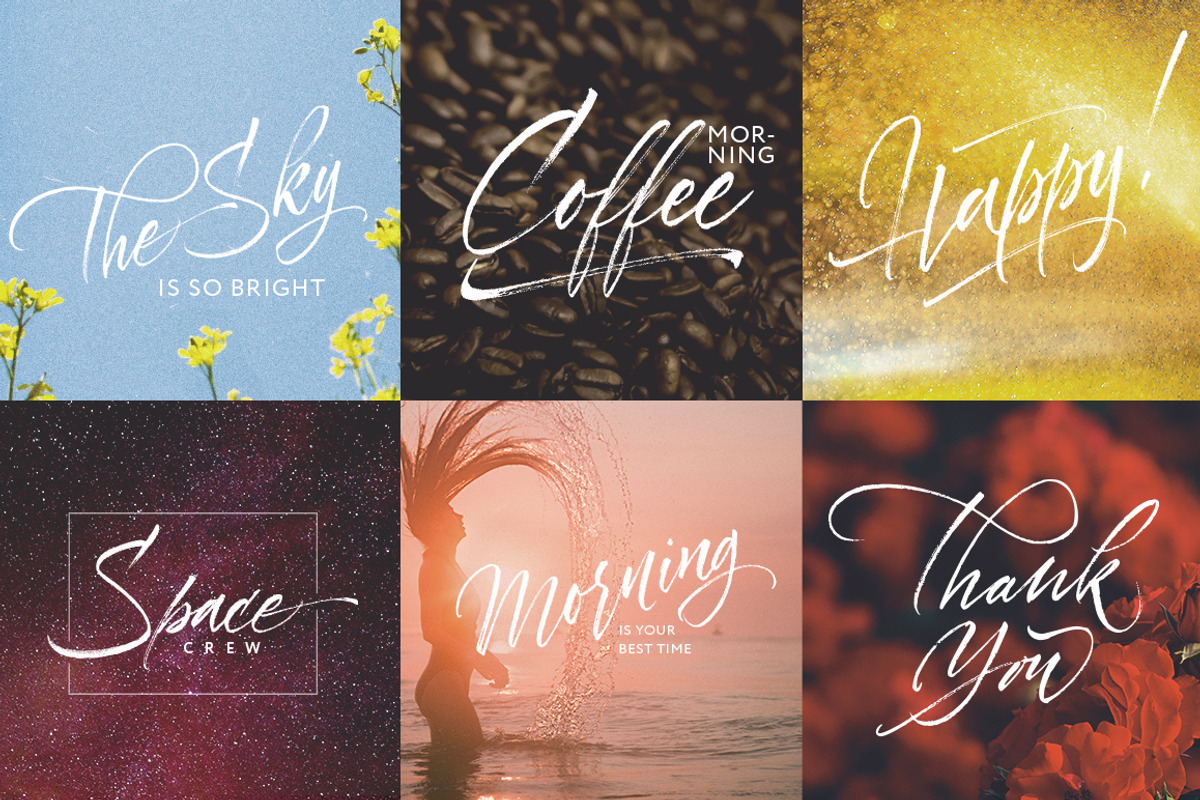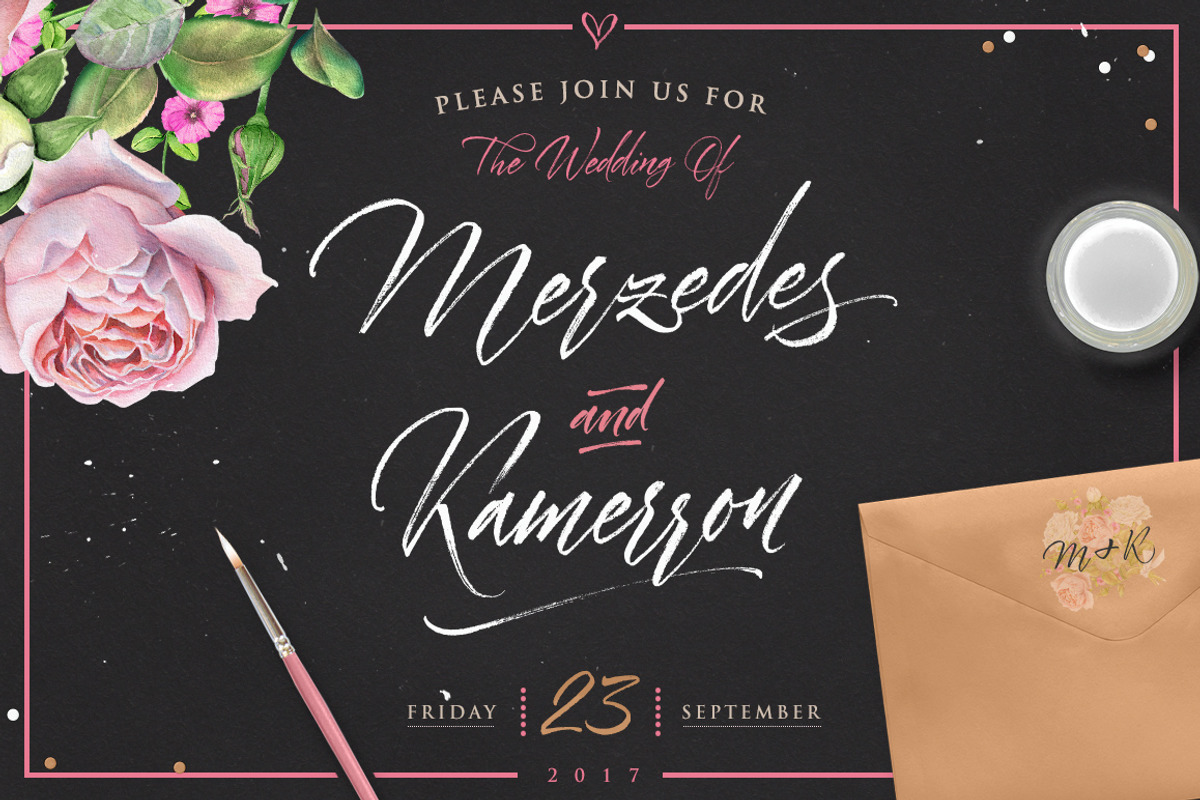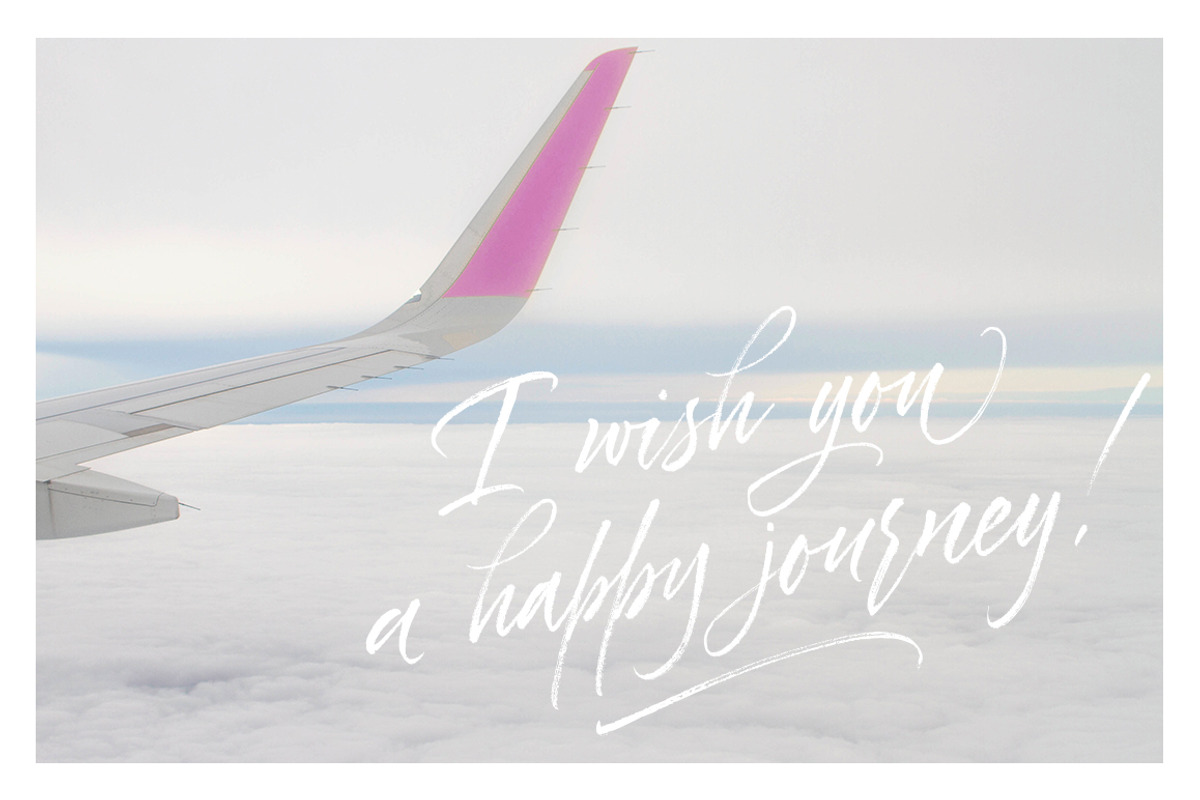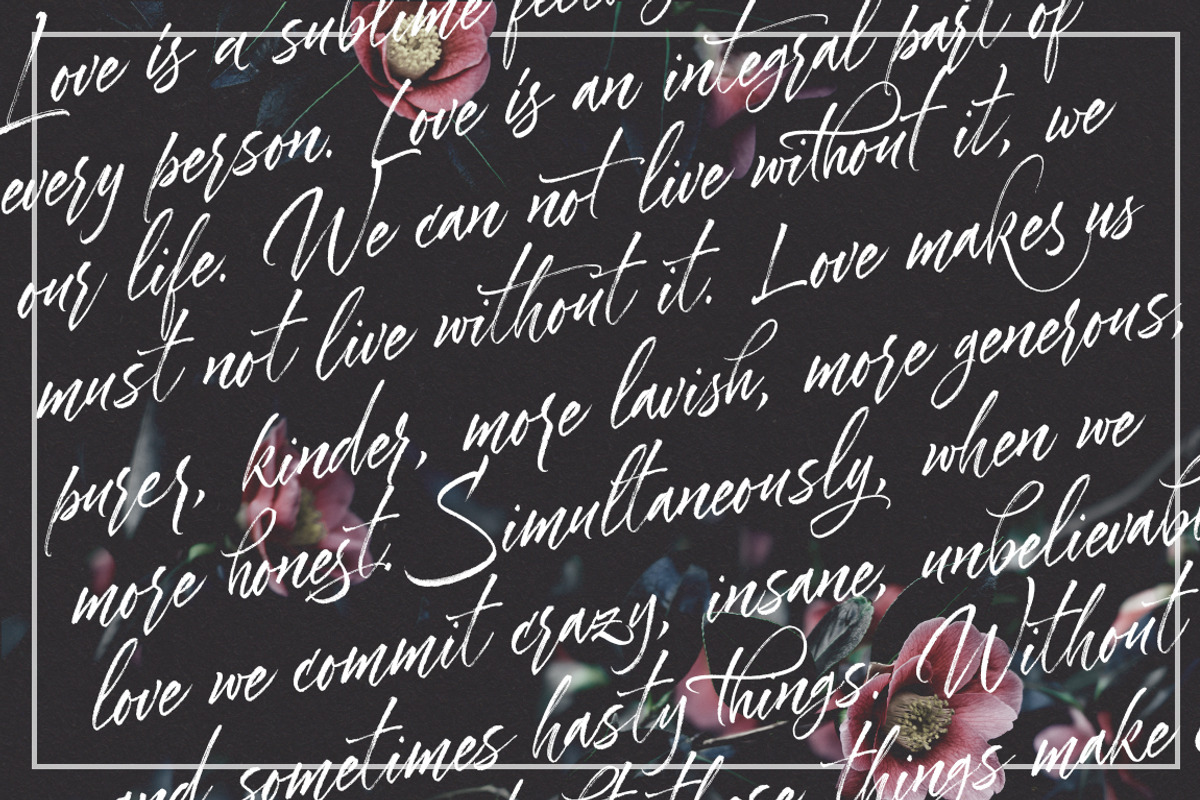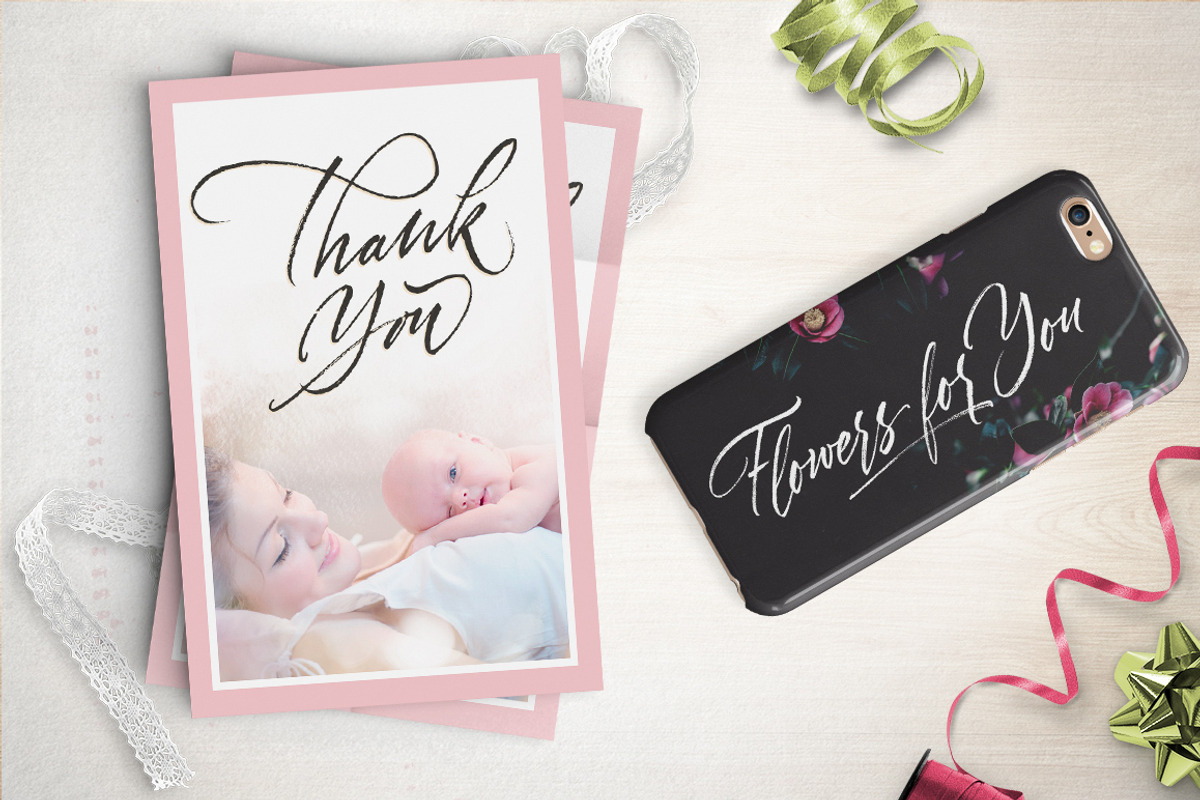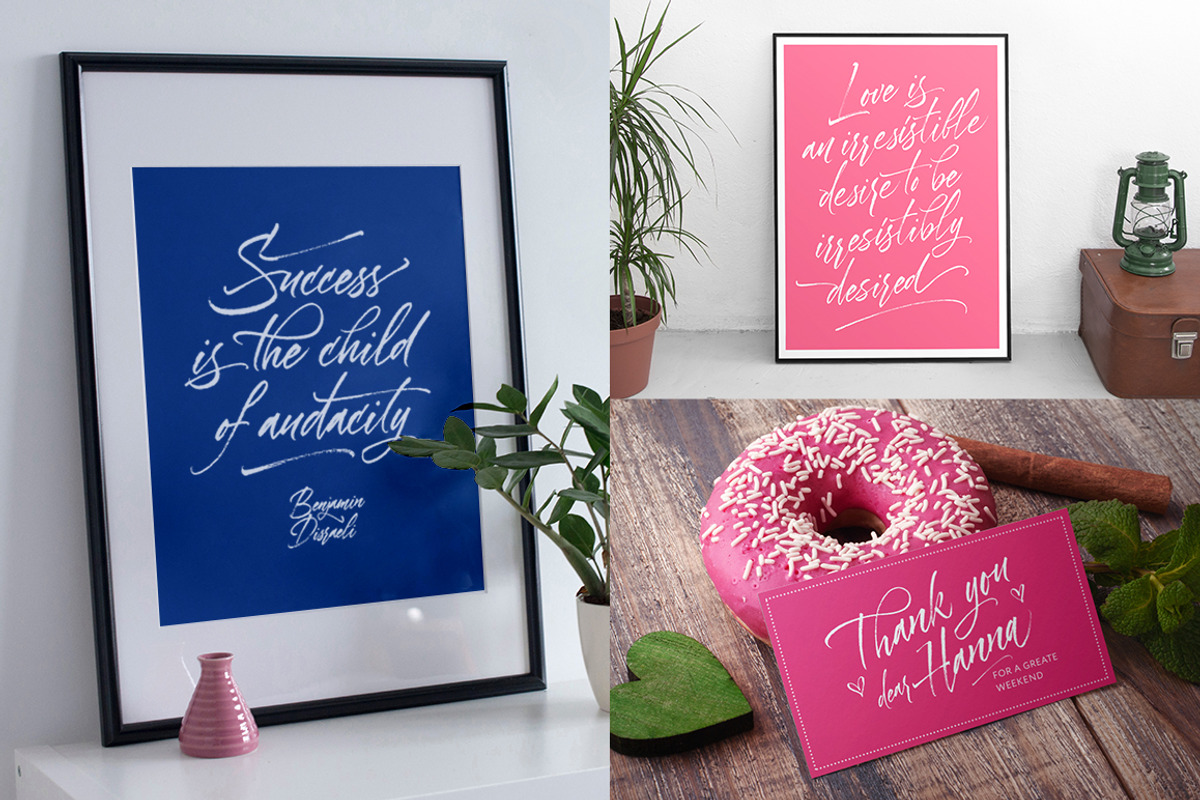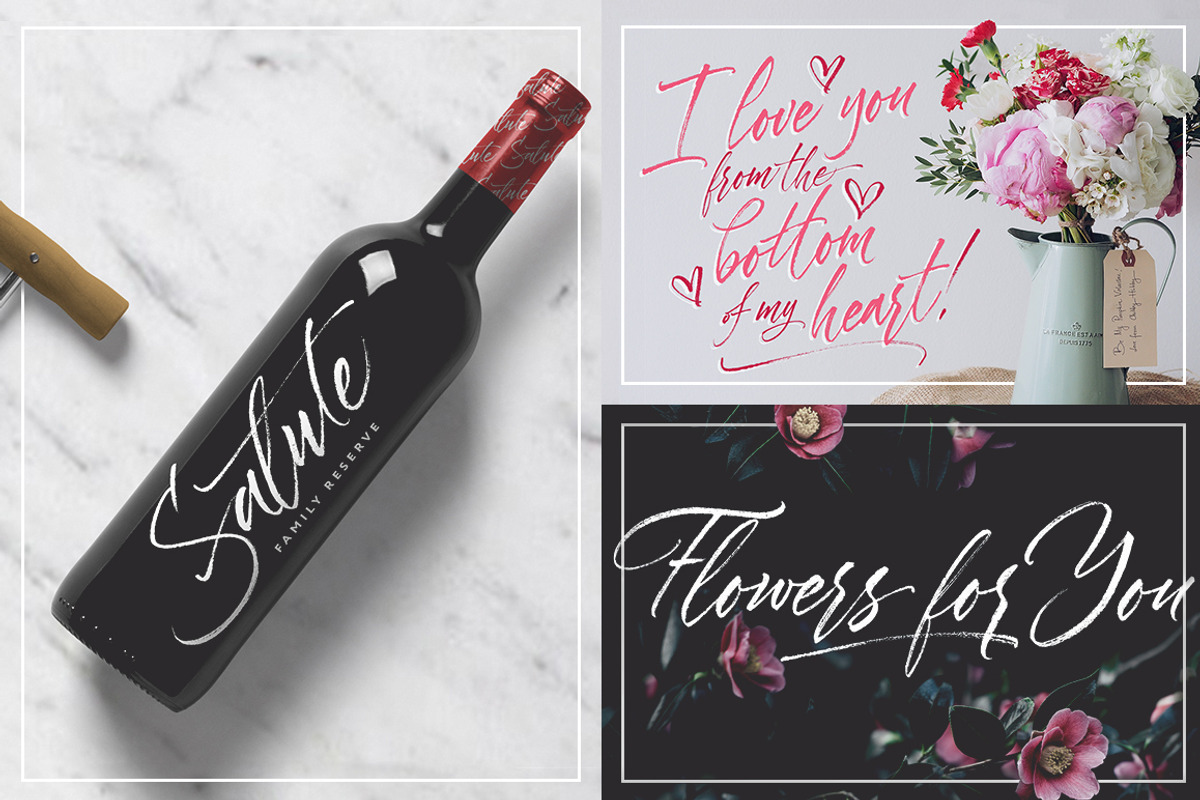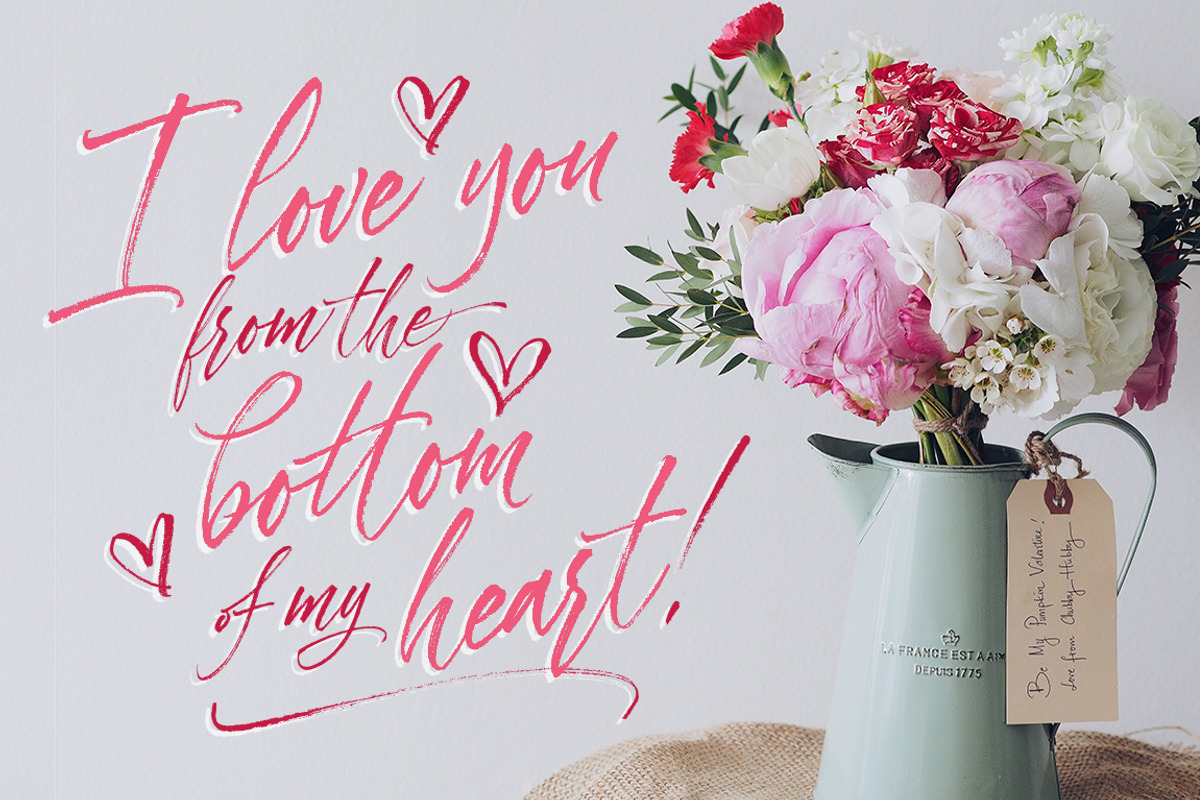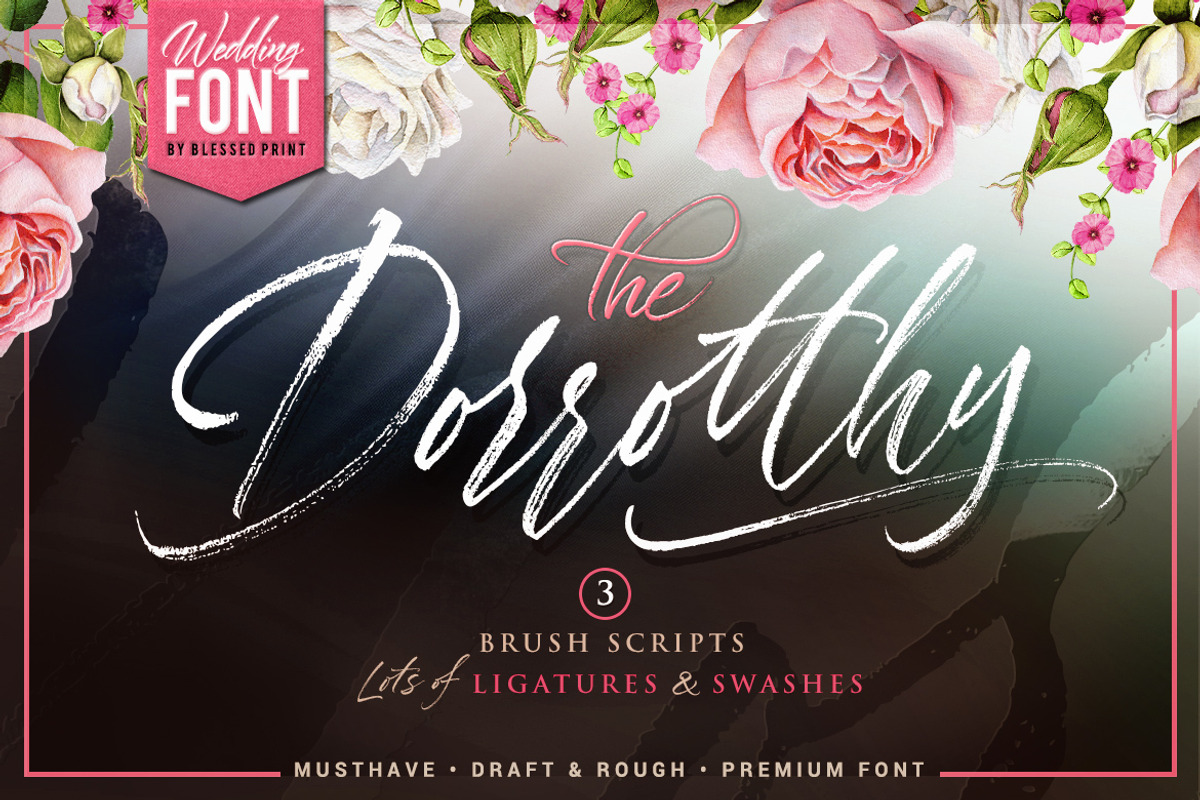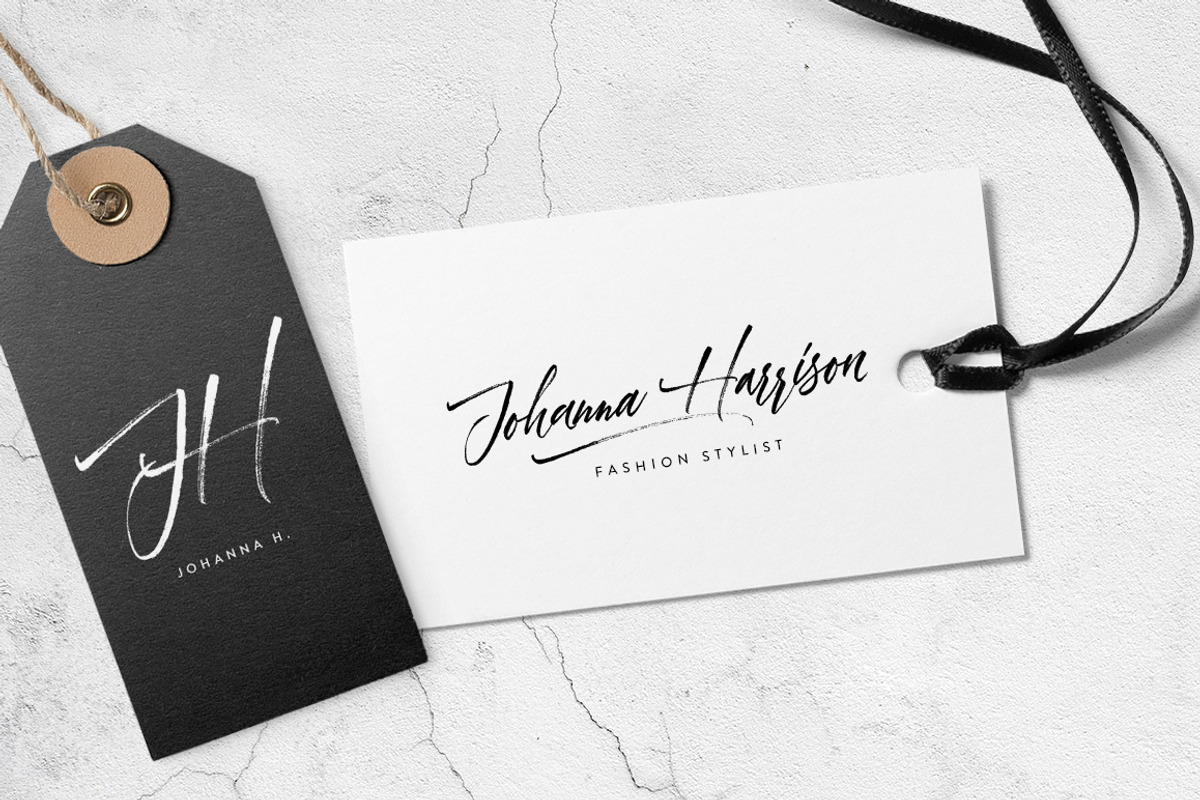
Dorrotthy script: 3 fonts & swashes
Welcome to The Dorrotthy. Premium quality handwritten font with elegant imperfections. It includes 3 individual fonts full of alternates and ligatures with a collection of swashes.
Dorrotthy script was originally drawn by a professional calligrapher Eugene Spizhovy in collaboration with BlessedPrint. All glyphs include maximum of texture imperfections with italic rough appearance. It is perfect for branding, logos, wedding invitations and inspirational quotes.
This is a main font file with 525 glyphs. Three full sets of uppercase letters and 3+ lowercase letters. Some letters include 5-7 alternates. Wide range of multilingual characters, 33 ligatures. All glyphs are PUA encoded.
Alternate set of Uppercase and Lowercase glyphs. It also includes full set of multilingual alternates. Everything you need for adding your sign original view is just to switch to another font and mix with alternates.
Another full set of Uppercase and Lowecase, multilingual. This font is especially useful when you need to give your branding signature unique and original appearance.
66 swashes. Simply type your words and add underneath any swash and get completed luxury view. It also includes different useful catchwords, hearts, ampersands, etc.